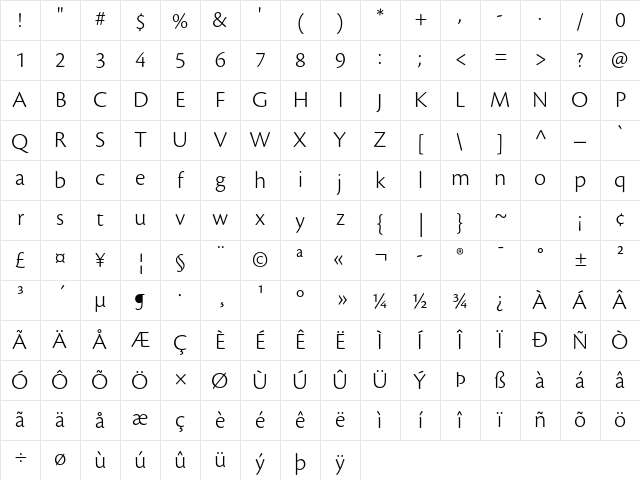
Cronos Pro Light Caption
Style: Light Caption
Complete Cronos Pro Light Caption glyph index. Displaying only characters natively supported by Cronos Pro Light Caption font.
Design Context for Cronos Pro
Cronos Pro is a composed and adaptable typeface that performs quietly and consistently across a wide range of design contexts. Its slender proportions lend an understated elegance to any composition.